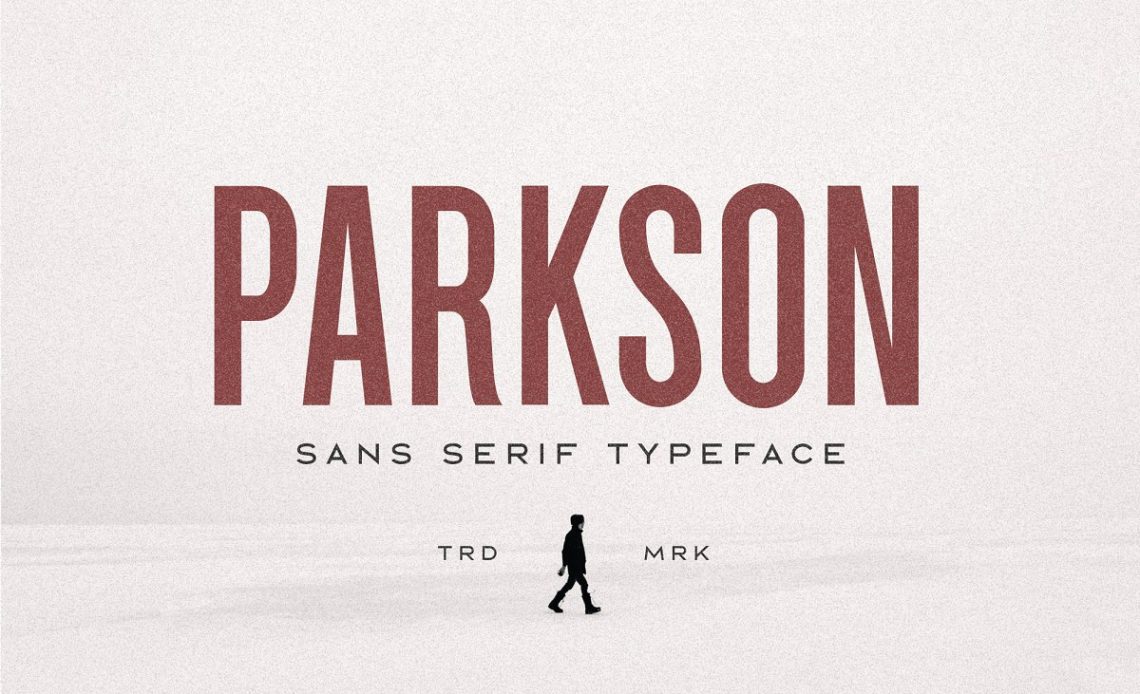
Looking for the perfect font for your next poster presentation? Look no further than Parkson Sans Serif, a stunning collection of 18 fonts created by renowned designer Greg Nicholls.
Inspired by the bold, geometric fonts of the 19th century, Parkson is a modern take on the classic sans serif typeface. With seven weights, including italic and several outline versions, Parkson is one of the world's best-condensed collections of fonts.
But Parkson isn't just beautiful - it's also designed for optimum legibility, making it perfect for logotypes, headers, titles, and brochures. And with a range of 221 glyphs in each font, Parkson supports all languages in Western Europe, from French and Spanish to German and Norwegian.
Whether you're designing a poster for a school project or creating marketing materials for your business, Parkson has everything you need to make a bold statement. And with 18 fonts to choose from, you'll have plenty of options to find the perfect fit for your project.